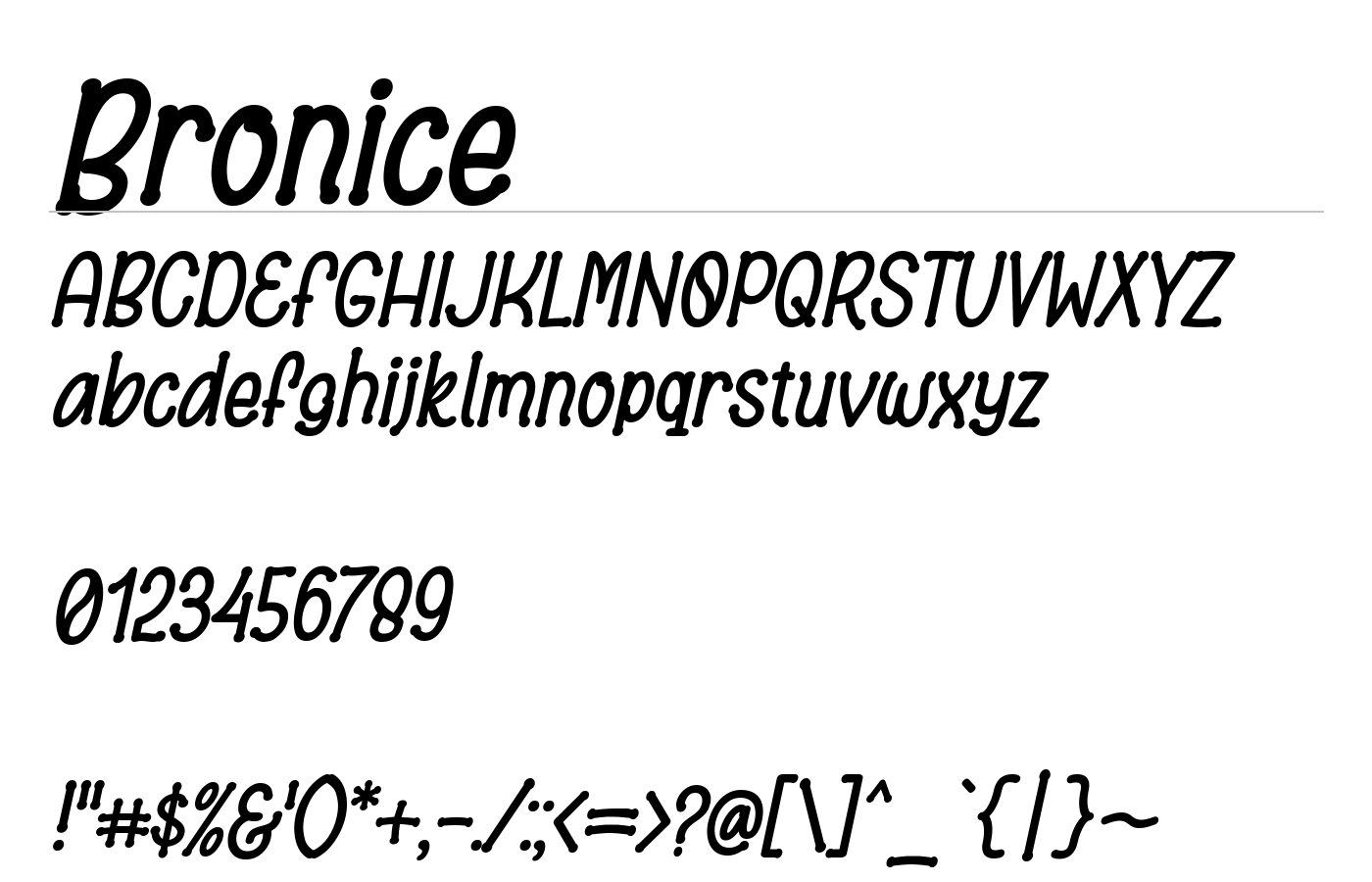
Bronice is a lively and casual script-style font with a slightly slanted, handwritten feel that combines playful curves and smooth, flowing lines. Its medium weight and consistent stroke give it a friendly yet refined personality, making it ideal for informal branding, invitations, and creative projects seeking an approachable and stylish touch. This font works well for headlines and display purposes where a warm, personalized vibe is desired.
Bronice Font
| Designer | Adif Dzaky; Situjuh Nazara |